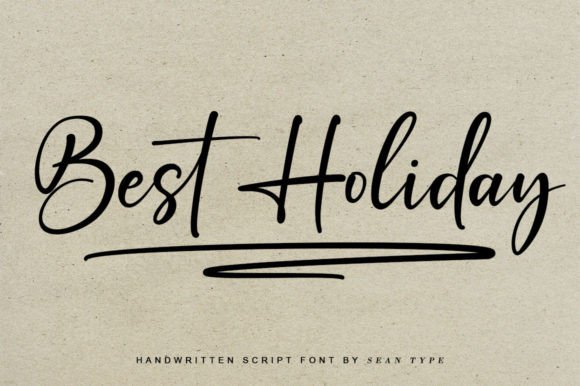
The Quest for the Perfect Holiday Font
Ah, the holiday season. A time for joy, giving, and designing the perfect festive project. I still remember the year I spent hours scouring font libraries for the ideal holiday script font. My client wanted something that exuded warmth, elegance, and a touch of whimsy. I tried font after font, but none seemed quite right. That was until I stumbled upon **Best Holiday**. This beautiful script font has been my go-to for holiday projects ever since. Let me tell you why.
A Personal Review of Best Holiday
I’ve had the pleasure of working with Best Holiday on numerous projects, and here’s what I love about it:
• ✨ **Timeless elegance**: Best Holiday offers a classic, sophisticated feel that’s perfect for holiday cards, invitations, and more.
• ✅ **Smooth flow of letters**: The font’s beautiful, flowing script makes it a joy to read and work with.
• 💫 **Strong sense of beauty**: The subtle but distinctive calligraphic forms add a touch of magic to any design.
• 🔍 **PUA encoded**: With PUA encoding, accessing glyphs and swashes is a breeze.
• 🤔 **Limited multilingual support**: While Best Holiday is a stunning font, its multilingual support is limited.
• ⚠️ **Occasional kerning issues**: As with any script font, you may need to adjust kerning for optimal results.
The Story Behind Best Holiday
While the true story behind Best Holiday remains a mystery, it’s easy to imagine a designer inspired by the magic of the holiday season. Perhaps they wanted to create a font that captured the warmth, love, and joy of this special time of year. Whatever the inspiration, Best Holiday is a beautiful result.
Can I use Best Holiday for multilingual designs? While Best Holiday has limited multilingual support, it’s best to check the font’s specifications for specific language support.
How do I access glyphs and swashes in Best Holiday? Glyphs and swashes can be accessed through the font’s PUA encoding, or through design software like Adobe Creative Cloud.
Is Best Holiday a versatile font? Yes, Best Holiday’s classic, elegant design makes it suitable for a wide range of projects, from holiday cards to wedding designs.